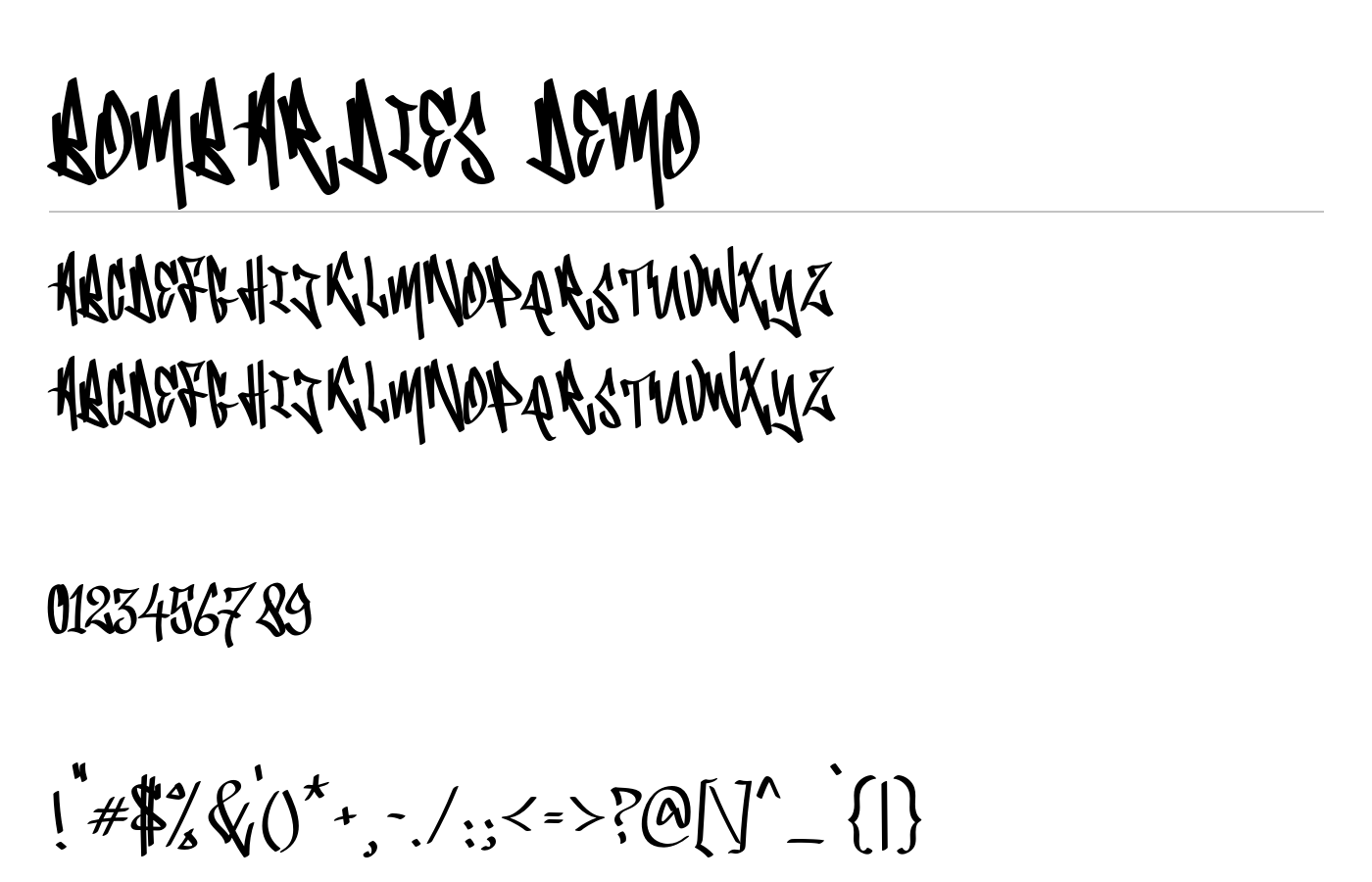
Bombardies Demo is a bold, graffiti-inspired sans serif font featuring tall, narrow, and sharply angled letterforms with a hand-drawn, urban edge. Its irregular strokes and dynamic shapes give it a rebellious and energetic personality, making it perfect for streetwear branding, edgy posters, and designs that seek a youthful, expressive vibe. This font works best in headlines and display settings where its unique style can stand out and capture attention.